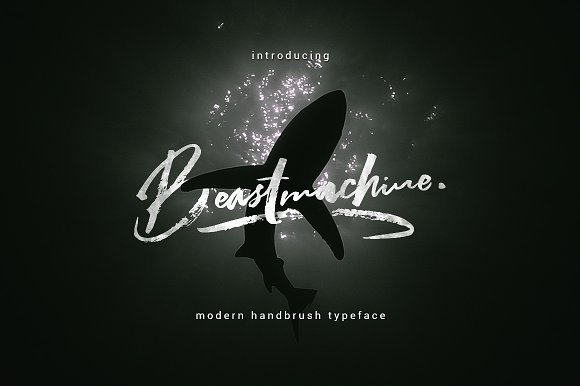
Unleash Your Creativity with Beastmachine Font
Have you ever stared at a blank page, trying to come up with the perfect font to match your project’s vibe? You’ve tried dozens of fonts, but none of them seem to capture the essence of your design. That’s when the magic happens – you stumble upon a font that speaks to you, and suddenly, your creativity starts flowing.
Enter Beastmachine Font, a hand-brushed typeface that’s as unique as it is captivating. This irregular handwritten style is designed to add a touch of personality to your designs, making it perfect for branding, advertising, and editorial projects. With Beastmachine Font, you’ll be able to convey your message in a way that’s both authentic and attention-grabbing.
As a designer, you know how important it is to have a versatile font that can adapt to any project. Beastmachine Font is that font – it’s valuable for its ability to add a human touch to your designs, making them more relatable and engaging. Whether you’re a seasoned pro or just starting out, Beastmachine Font is an excellent addition to your design arsenal.
Beastmachine Font Key Features
- Unique Character Set: Beastmachine Font features a unique set of characters, including alternate glyphs, ligatures, and swashes, adding an extra layer of creativity and expressiveness to your designs.
- Professional-Quality Design: The font is carefully crafted to deliver a professional and sophisticated look, making it suitable for a wide range of applications, from corporate branding to advertising and editorial design.
Beastmachine Font Review
Overall, I have mixed feelings about the Beastmachine Font. While it has some unique features, it also falls short in certain areas.
- Expressive and edgy design aesthetic that’s perfect for science fiction or action-packed projects.
- Highly customizable with a wide range of font sizes and styles available.
- Good legibility, even at small font sizes.
- Lack of consistency in font weight and style across different sizes and styles.
- Not ideal for body text or long-form content due to its high visual energy.
- Some characters may be difficult to read or distinguish from one another.
Overall, the Beastmachine Font is a great choice for projects that require an edgy or futuristic look. However, it’s not suitable for all types of content or design styles. With some careful consideration and customization, it can be a valuable addition to your design toolkit.
Tips for Getting the Most Out of Beastmachine Font
Use Beastmachine Font for titles, headings, and other bold typography elements.
Combine Beastmachine Font with other fonts to create a unique and visually appealing design.
Experiment with different font sizes, colors, and settings to achieve the desired effect.
Beastmachine Font is ideal for:
Branding and logo design.
Marketing materials, such as posters and flyers.
Graphic design projects, such as infographics and brochures.
What is the recommended font size for optimal readability with the Beastmachine Font?
For optimal readability, we recommend using the Beastmachine Font at a minimum size of 12 points. However, this may vary depending on the specific use case and viewing distance. Experiment with different font sizes to find the optimal setting for your design.